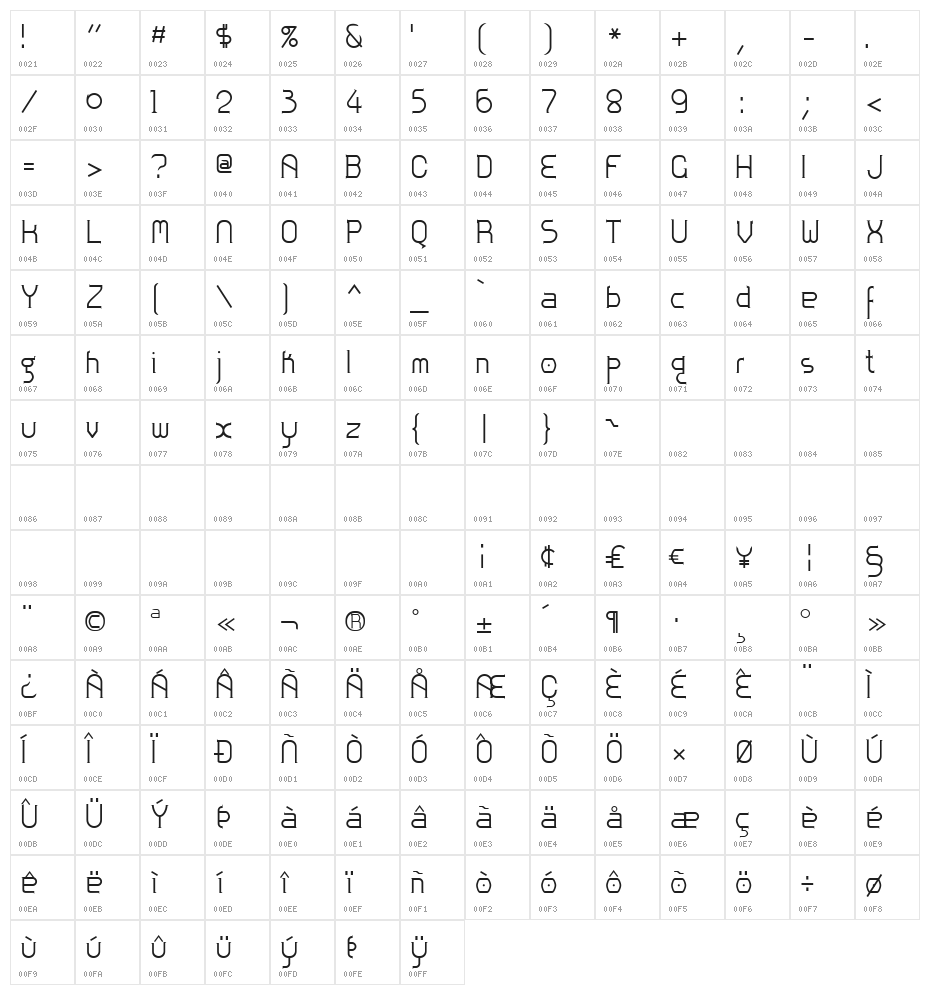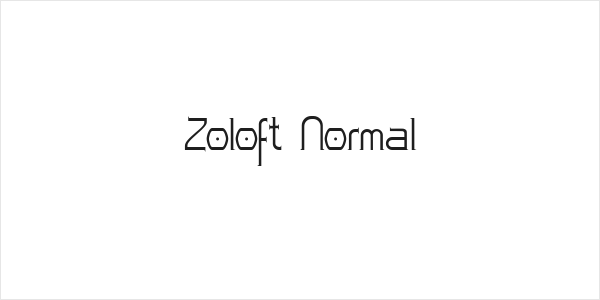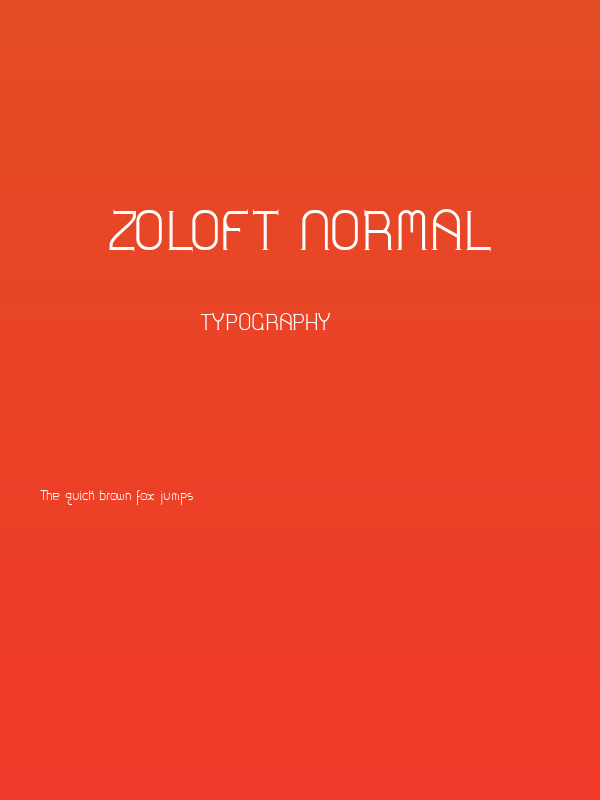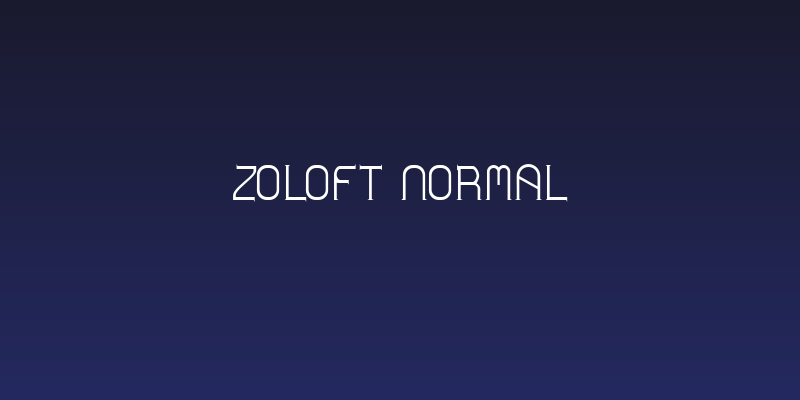
Zoloft Normal Font
Zoloft Normal Description
This font features a unique and modern design with geometric elements and a futuristic feel. The uppercase letters are tall and narrow, with distinct angular cuts and rounded edges that give it a sleek appearance. The lowercase letters maintain a consistent style, with some characters like 'g' and 'y' having distinctive loops and tails. The numerals are clear and easy to read, with a consistent height that matches the uppercase letters. Special characters are designed to complement the overall aesthetic, with a focus on symmetry and balance. This font is ideal for projects that require a contemporary and innovative look.
| Use Case | Logos, Headlines, Branding |
| Proposed Projects | Ideal for technology branding, modern advertising, and innovative product packaging. |